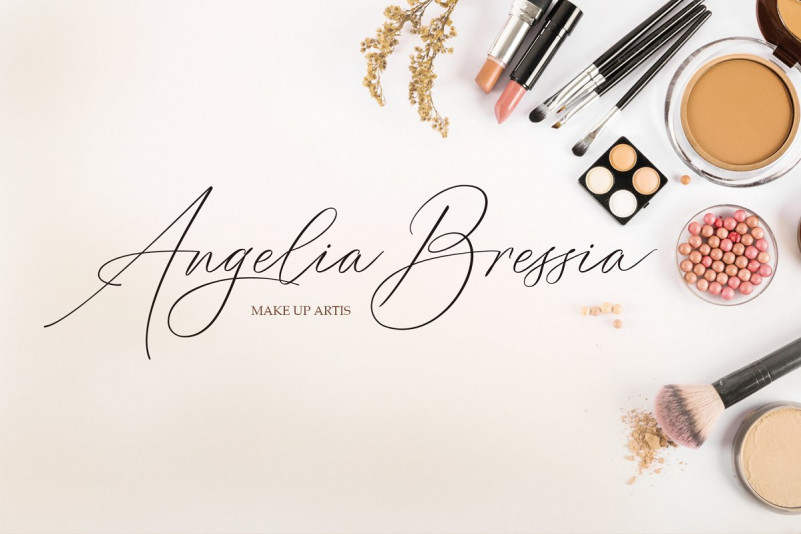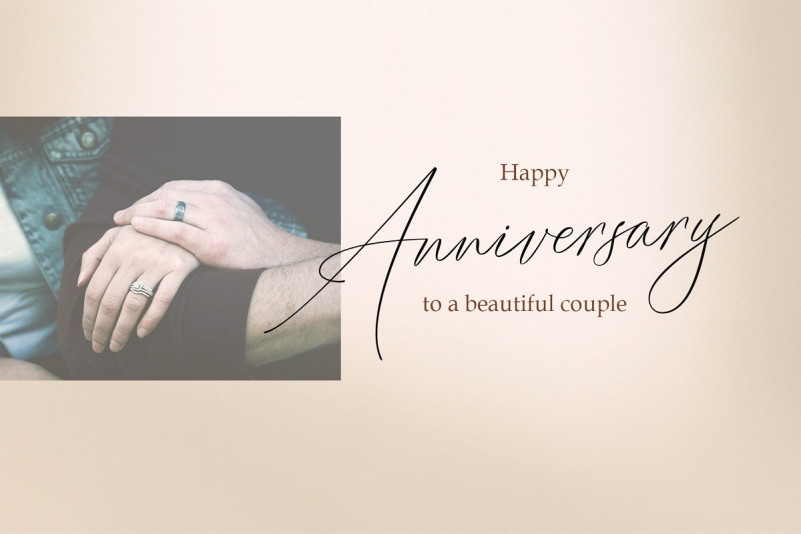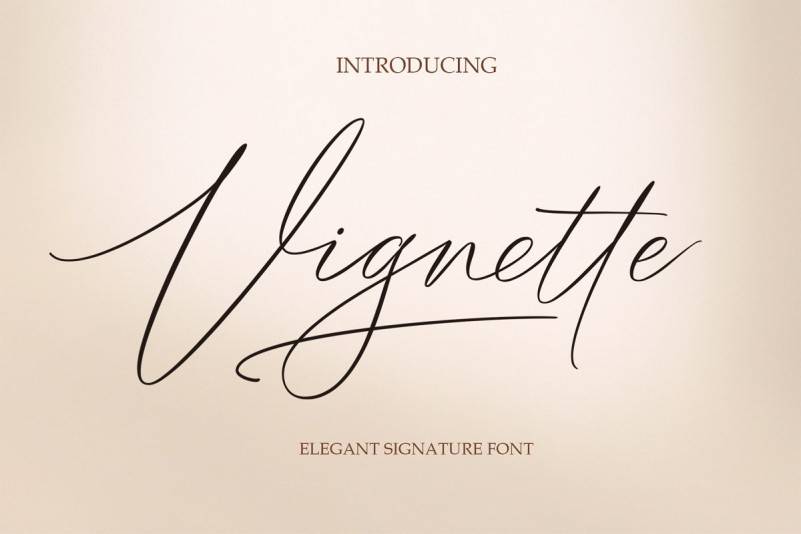
Vignette Signature Font
This is perfect for branding, wedding invitations and cards.
Vignette Signature includes a complete set of upper and lower case letters, numbers, various punctuation marks and ligature. All lowercase letters include beginning and ending swash, giving a realistic handwriting style. All uppercase letters include the beginning of swash, which makes the font look great!